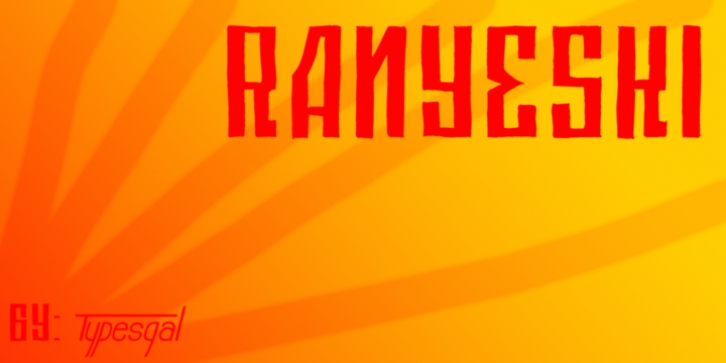
Ranyeski is a plain, handdrawn typeface inspired by the Cyrillic alphabet. Its squar characters fit nicely to your design in a lot of cases and two types of ‘o’ make it even more exciting. Ideal for titles and headlines but also looks nice as longer texts.